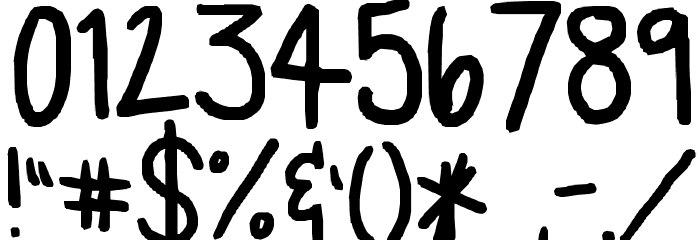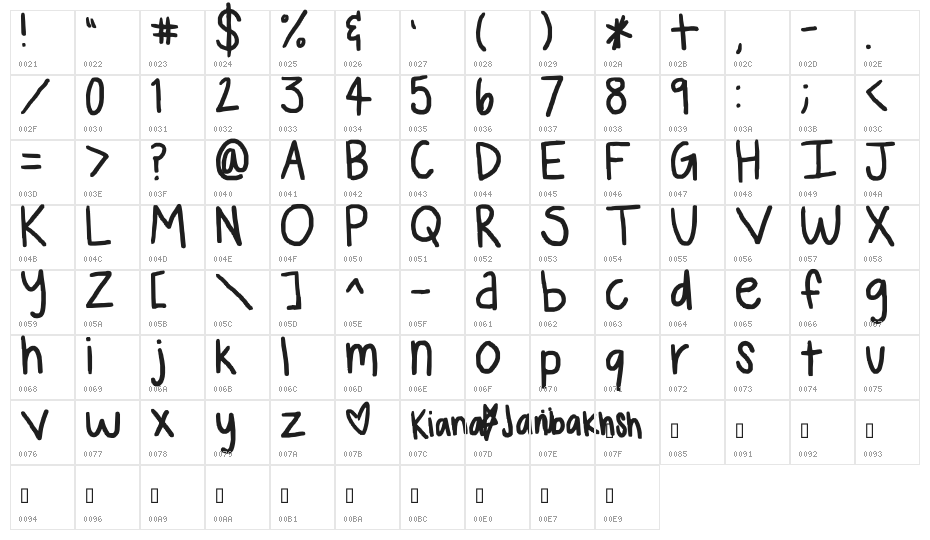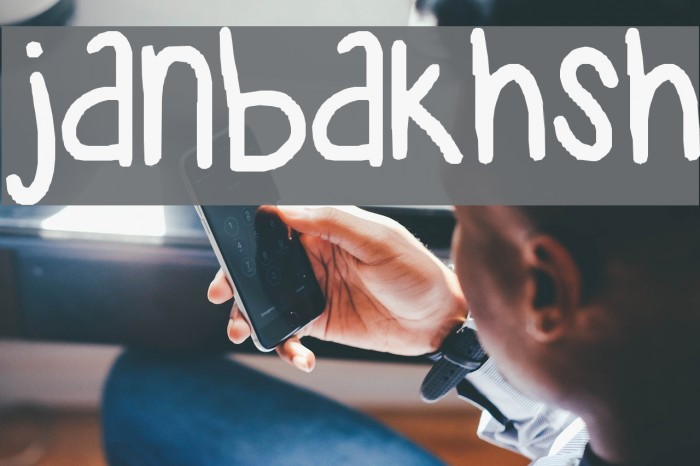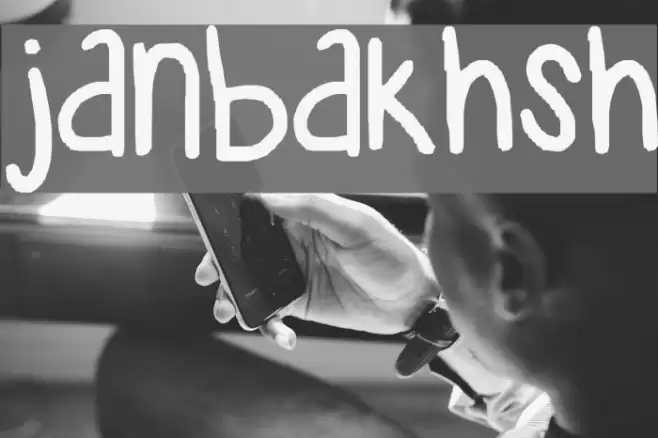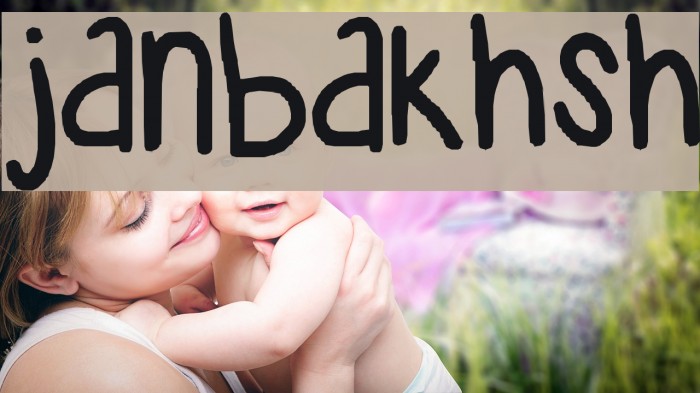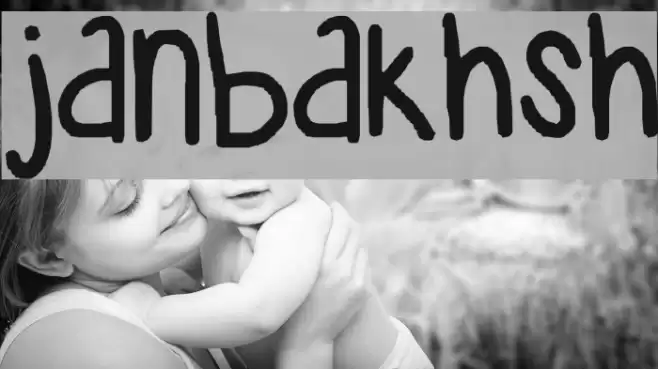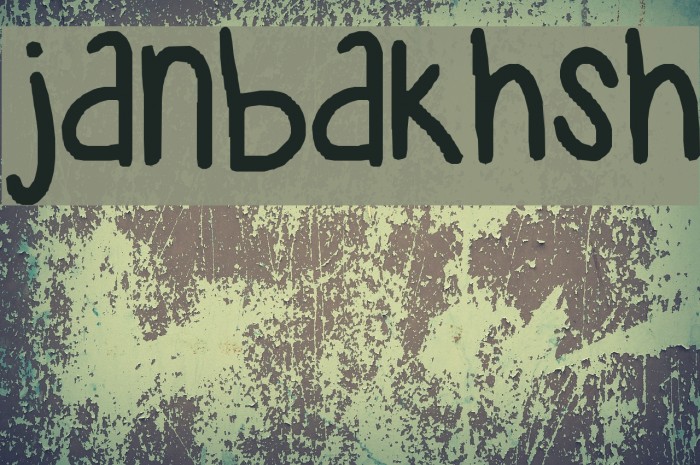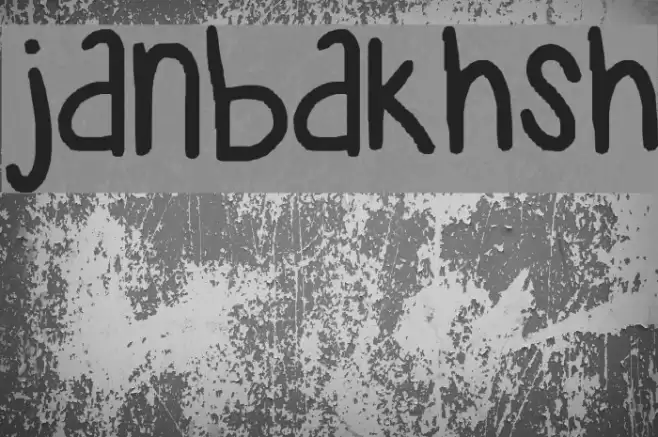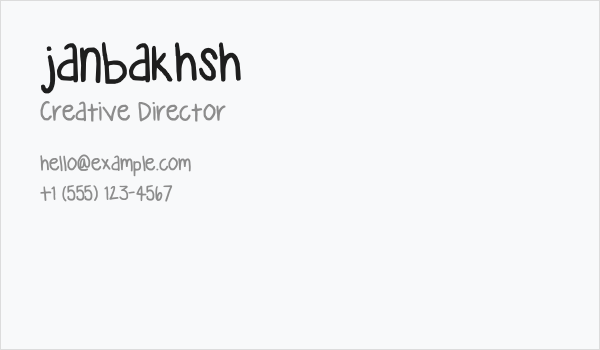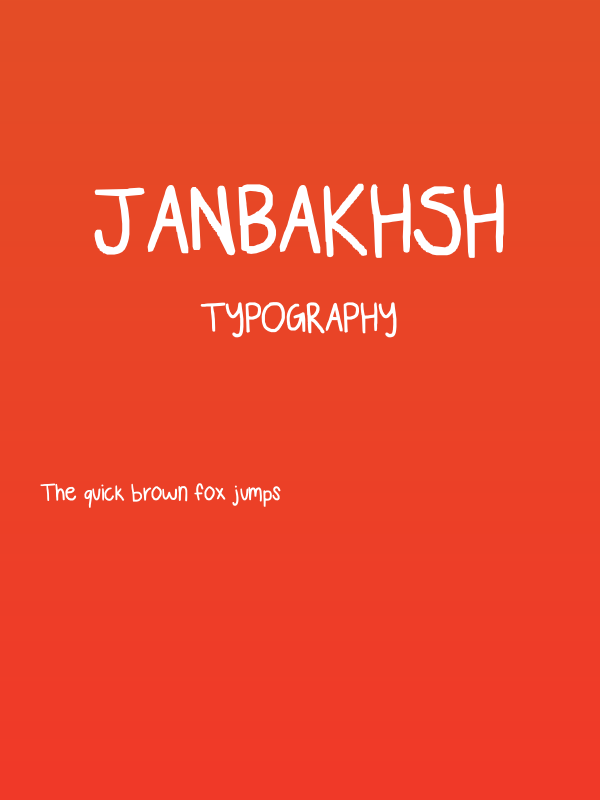
janbakhsh Font
janbakhsh Description
This font features a playful and informal handwritten style, characterized by its irregular, slightly wobbly lines and casual appearance. The letters are bold and rounded, giving them a friendly and approachable feel. The uppercase and lowercase letters maintain a consistent style, with a slight variation in size and shape that adds to the hand-drawn aesthetic. Numbers and special characters are included, matching the overall quirky and fun design. This font is perfect for projects that require a personal touch or a sense of whimsy.
| Use Case | Headlines, Informal Text, Creative Projects |
| Proposed Projects | Ideal for children's books, greeting cards, casual branding, or any project needing a personal, informal touch. |